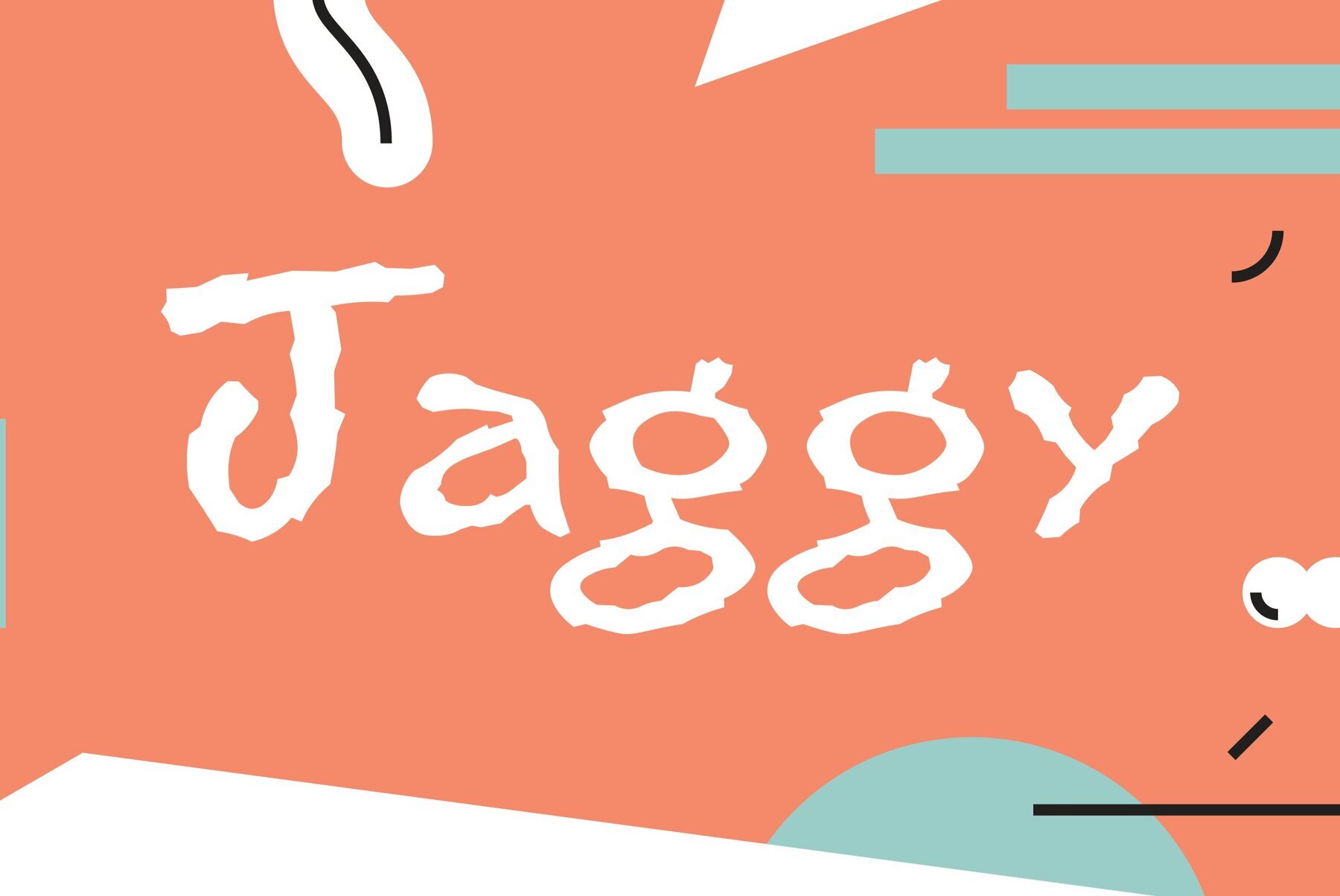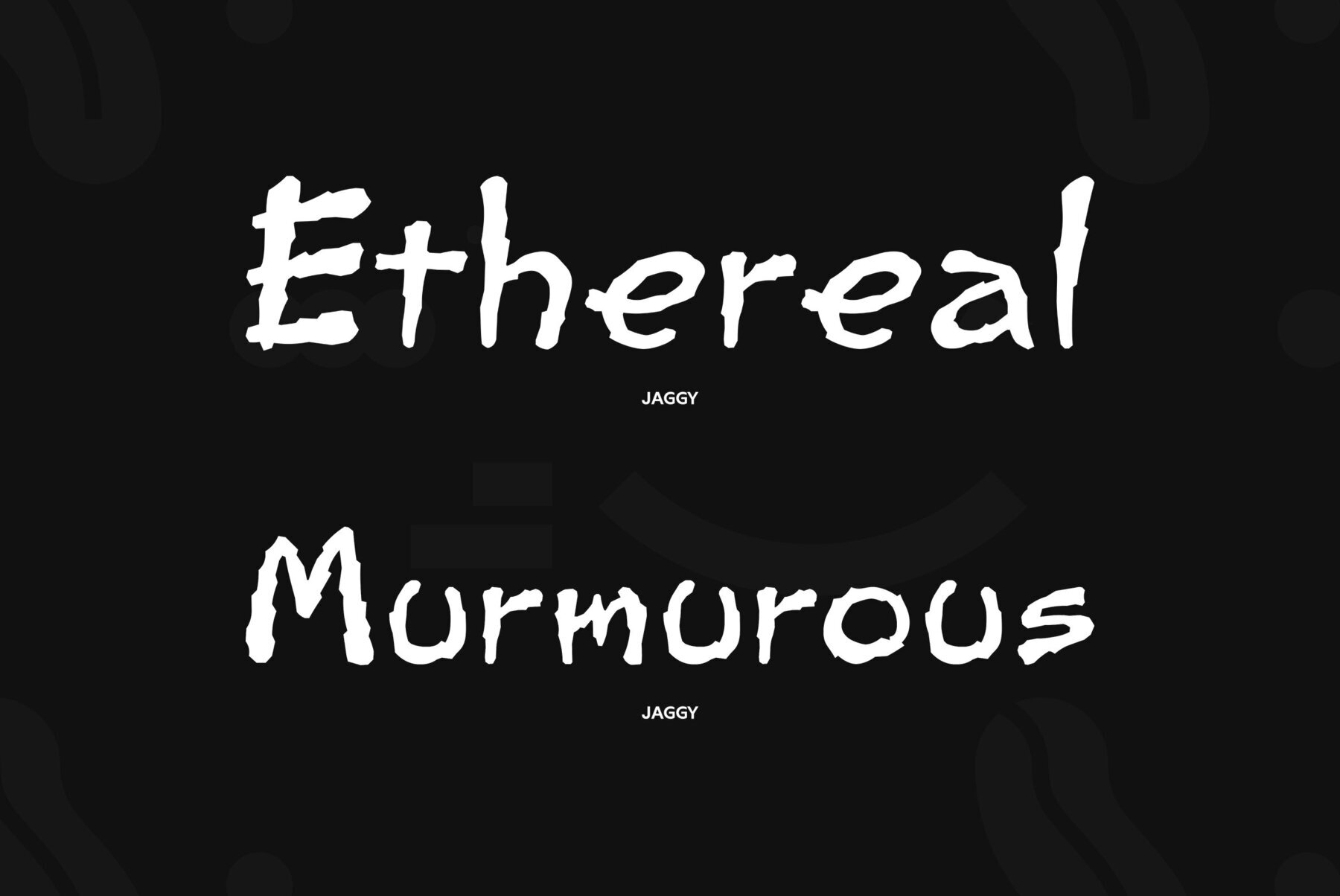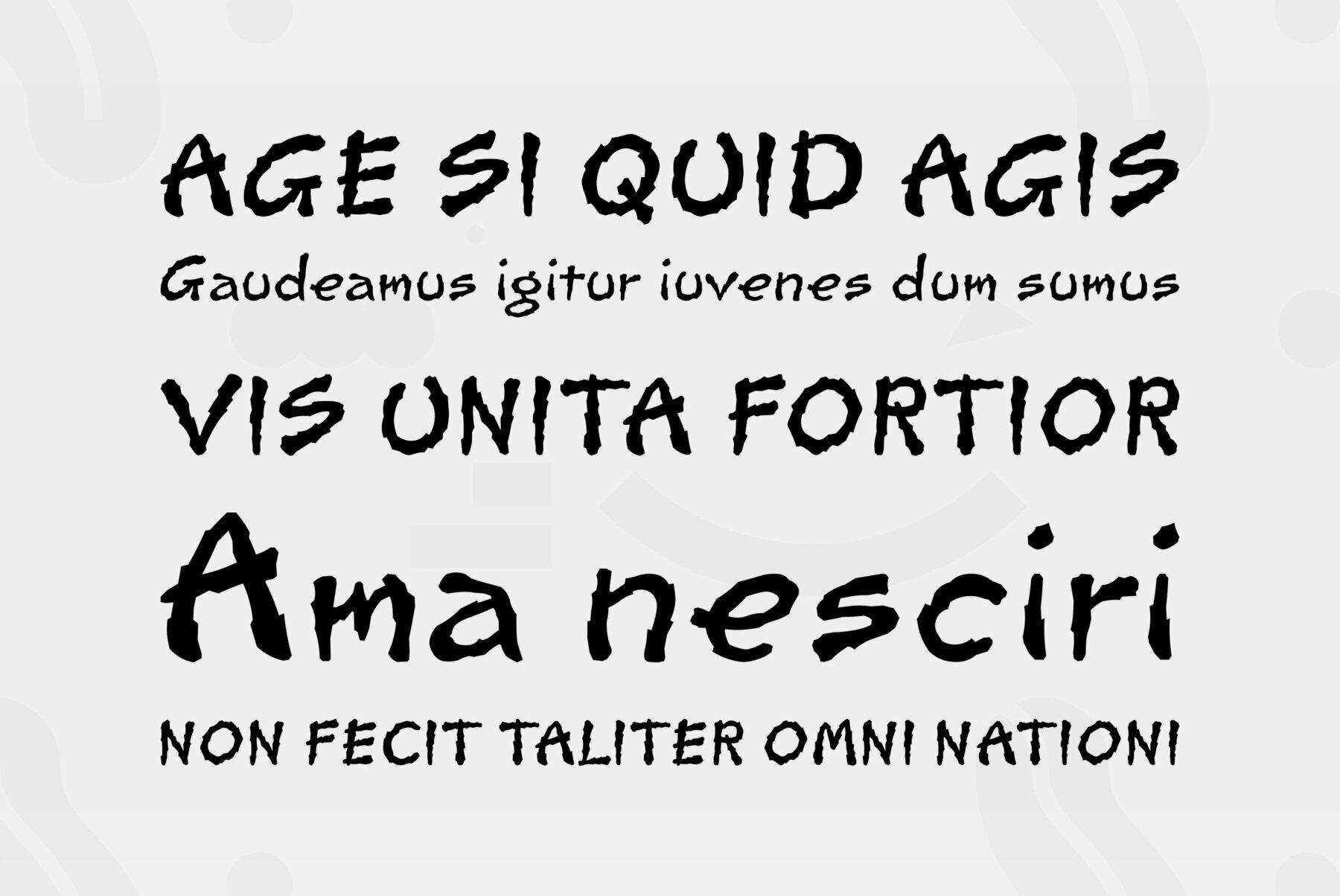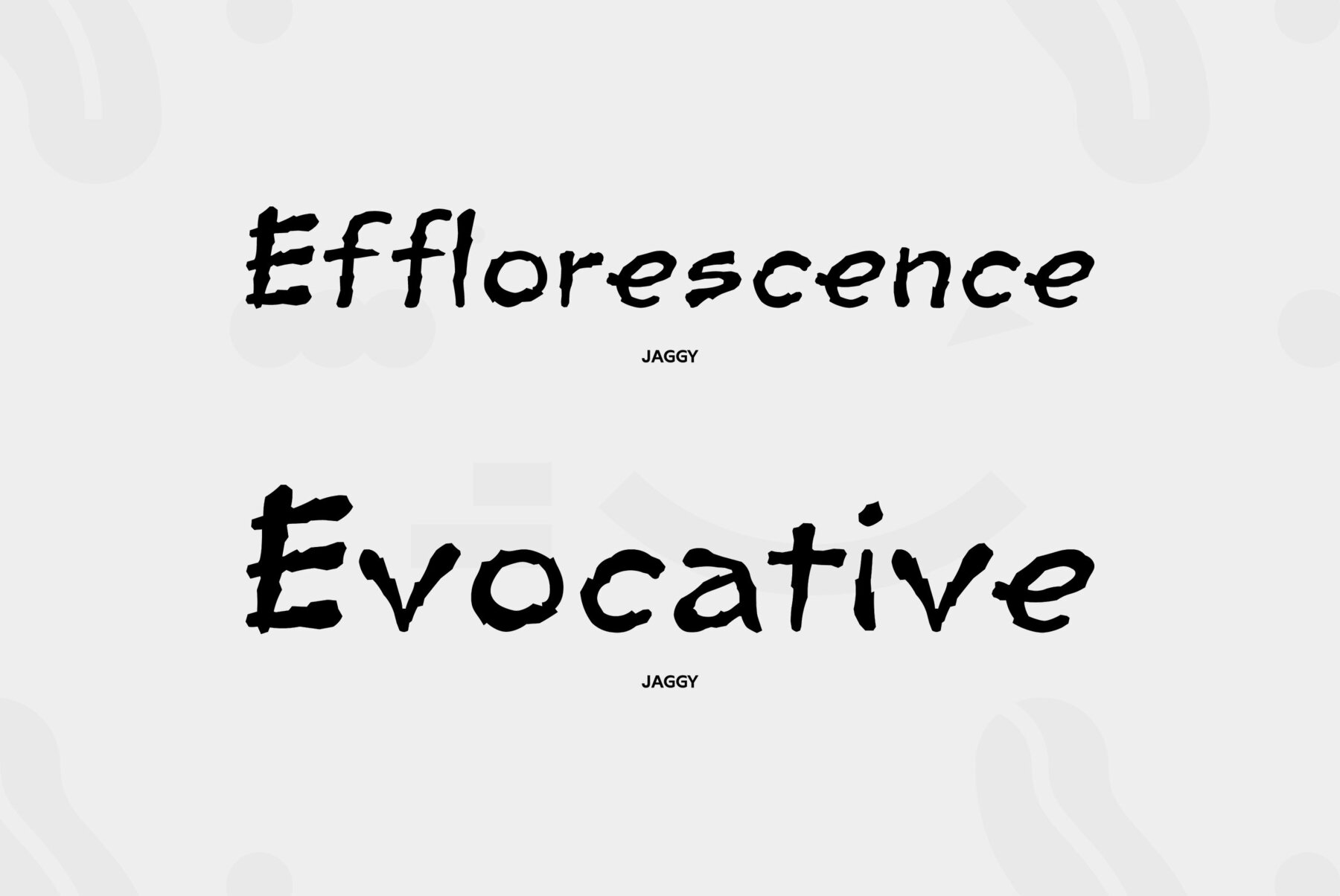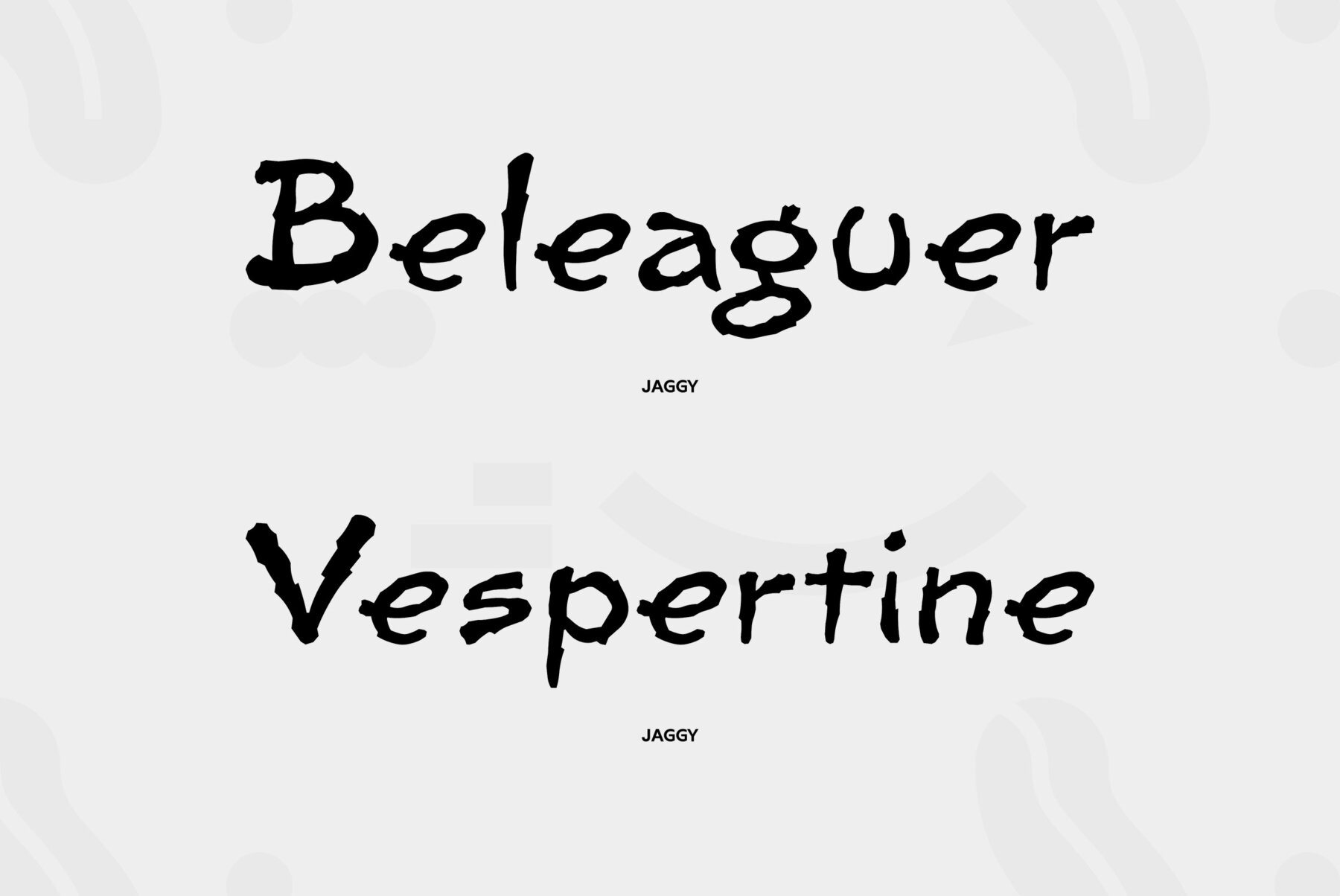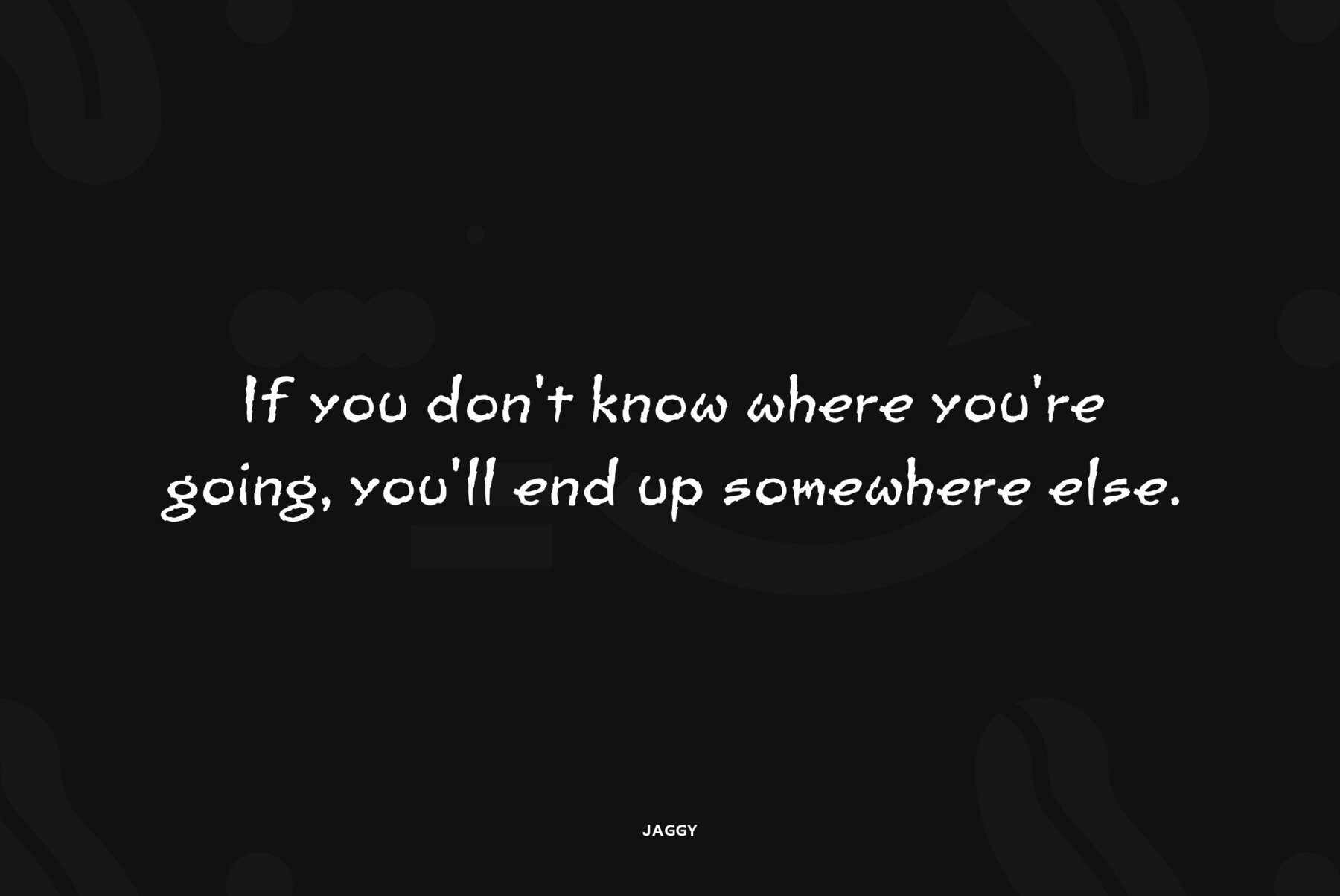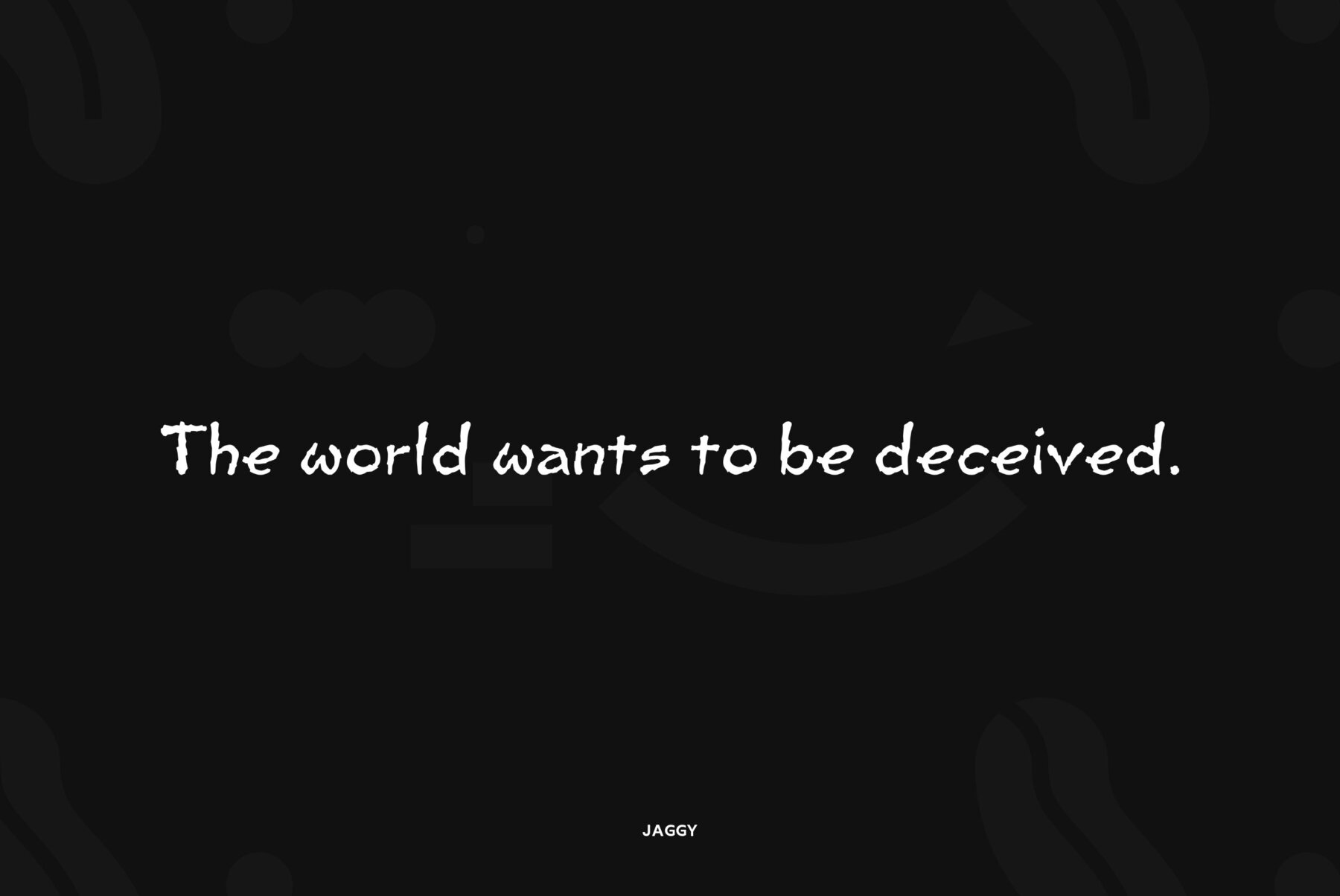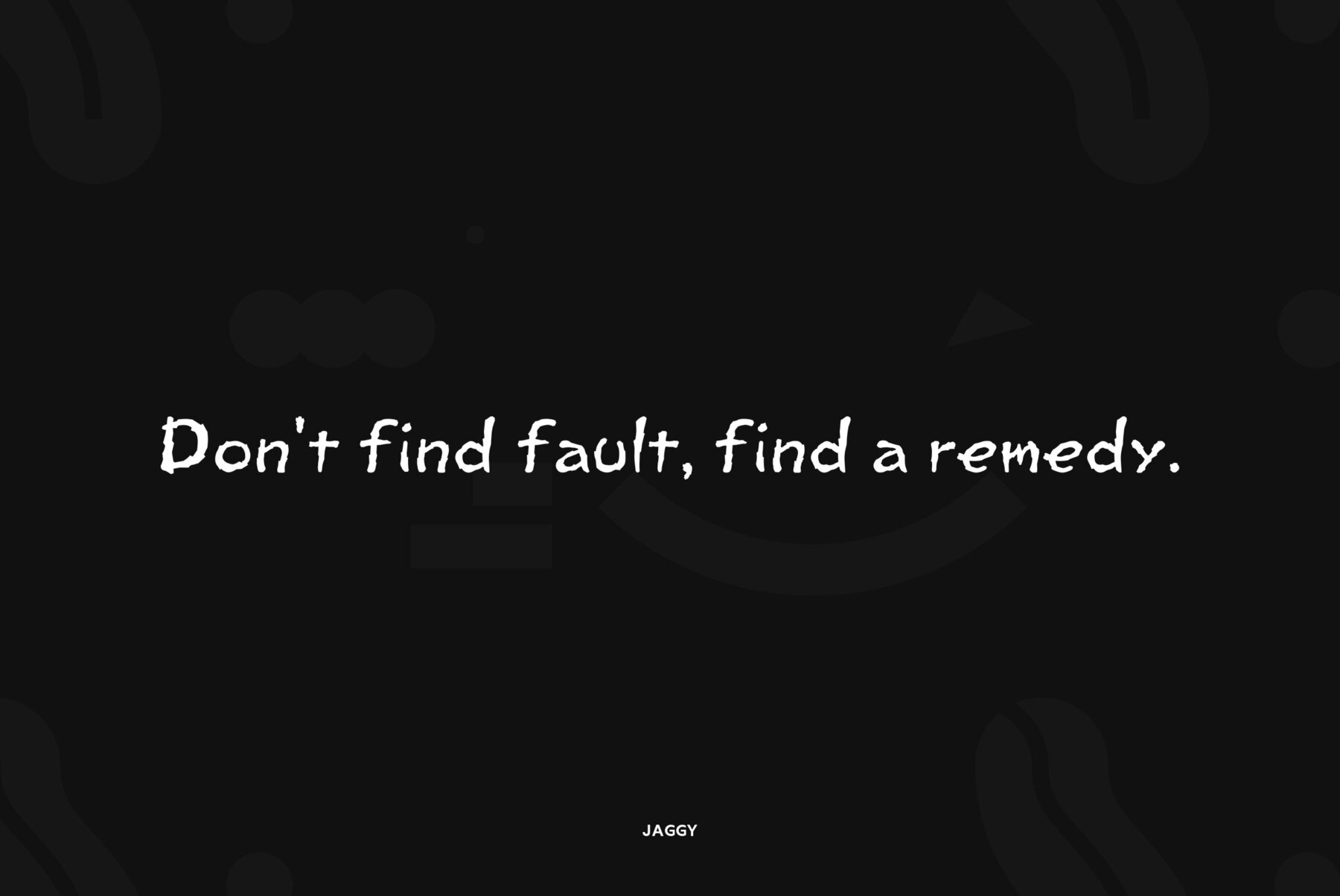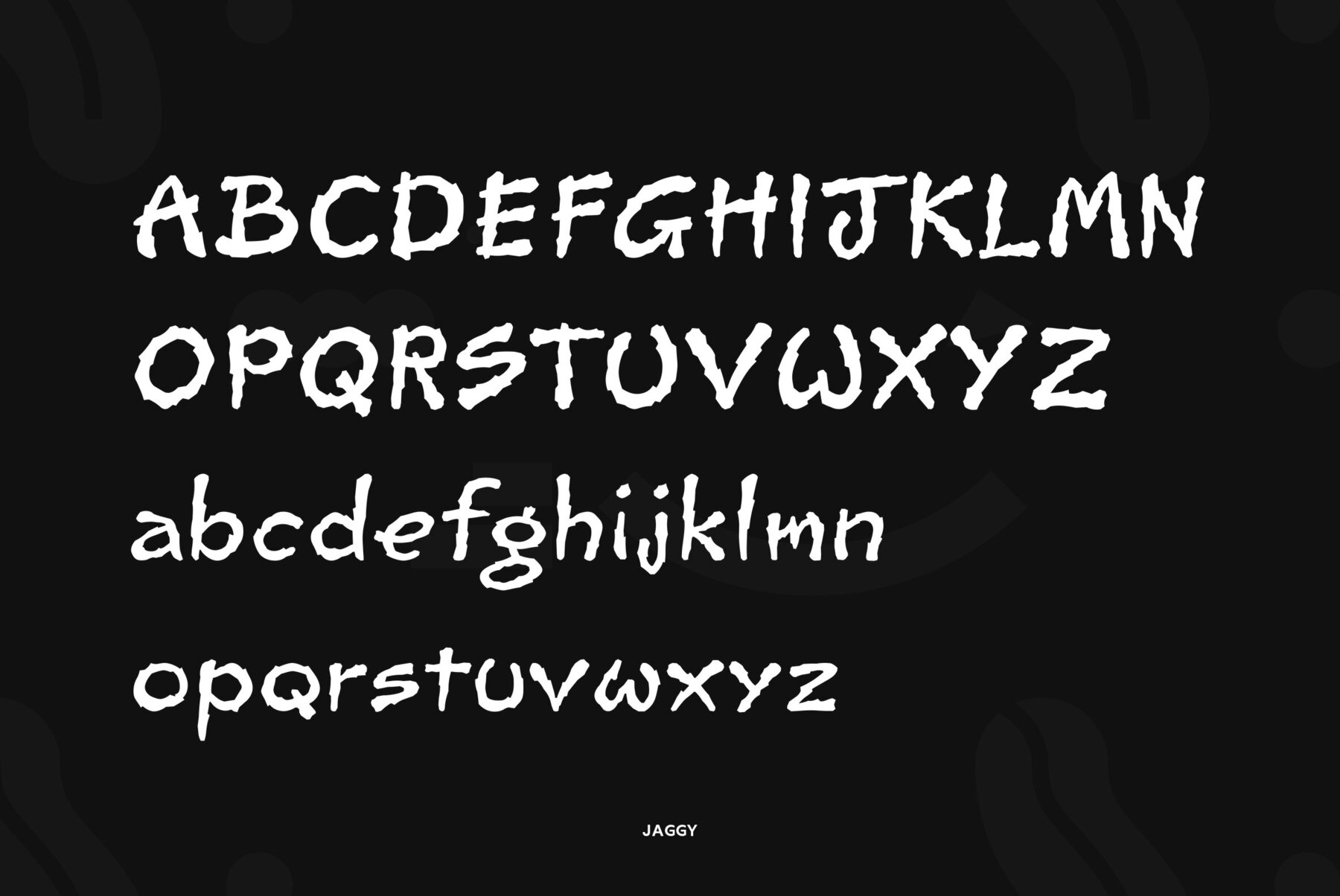
The script designed for ParaType in 2006 by Isabella Chaeva. Based on informal handwriting.Its characters have rough jaggy contour; in small sizes the face simulates an effect of handwriting by felted pen on rough paper. For use in advertising and display typography.